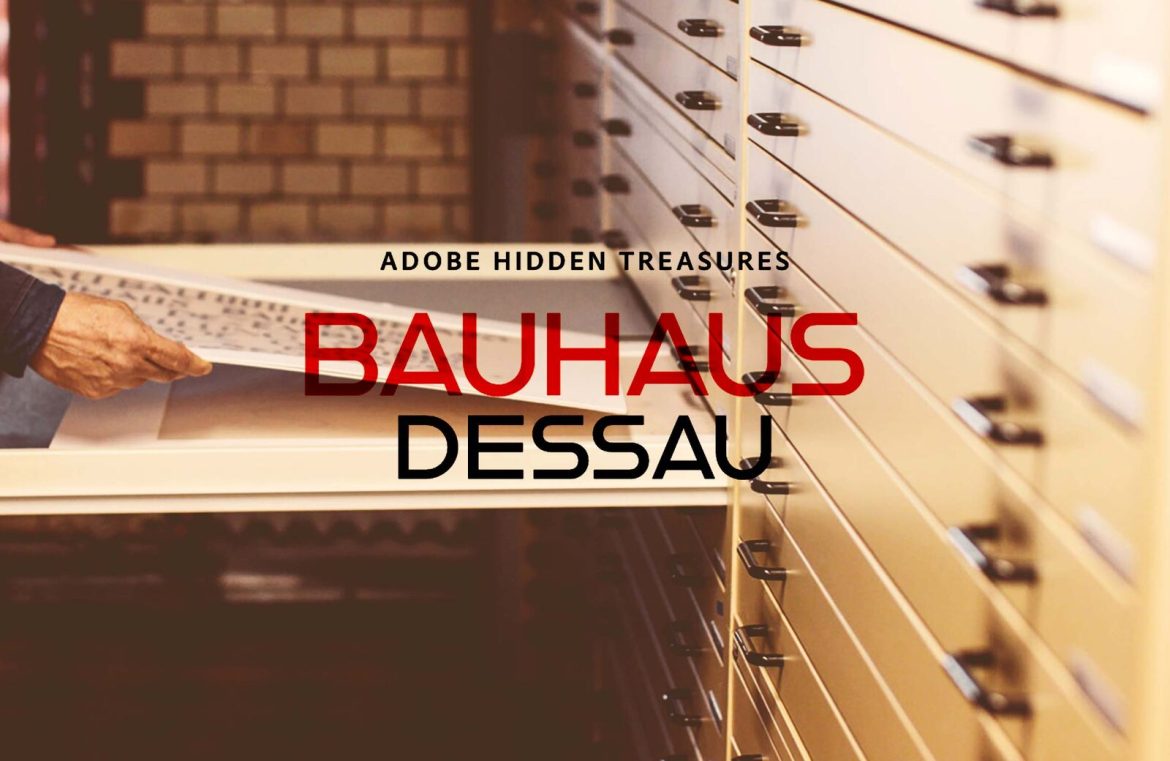
Nearly a century after Bauhaus first emerged, Adobe Typekit salutes the iconic institution with a series of five newly crafted typefaces, brought to life by the passionate work of both students and professionals. Under the guidance of expert Erik Spiekermann, and in partnership with the Bauhaus Dessau Foundation, these fonts encapsulate the spirit of the original designs.
Introducing Five Bauhaus Masterpieces
As of now, Typekit offers two of these fonts:
Joost Schmidt, a key figure behind the school’s typographic vision during 1925–1932, has his ethos captured in the new alphabet ‘Joschmi’, meticulously crafted by Flavia Zimbardi from Schmidt’s original six-letter outlines.
Xanti Schwinsky’s diverse forays into various design media are honored by Luca Pellegrini’s ‘Xants’, which resurrects Schwinsky’s aesthetic for contemporary application, complete with all necessary punctuation and symbols. Anticipated additions will include three more fonts celebrating the work of Bauhaus luminaries:
Alfred Arndt’s typographic posters find a new voice through Céline Hurka’s revival. Reinhold Rossig’s prolific and experimental designs are brought back to life by Hermann Werner and Elia Preuss.
Finally, Carl Marx’s blend of Bauhaus design and Kandinsky’s artistic influence is reimagined by Hidetaka Yamasaki.